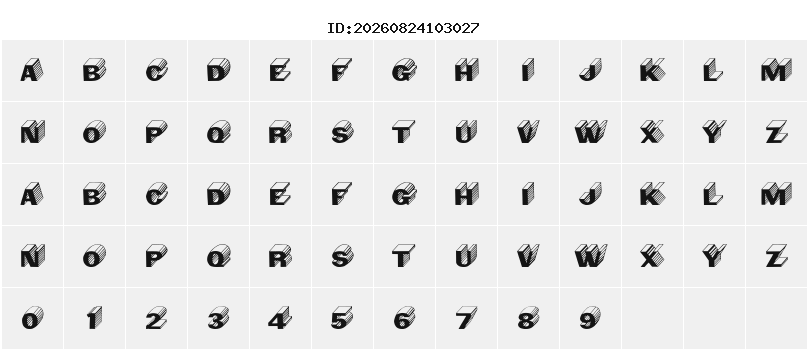
• Font Name: Salter Wd
• Full Font Name: Salter Wd
About Salter Wd.ttf
Salter Wd.ttf is a modern, elegant sans-serif font designed for ultimate readability and visual harmony. Perfect for branding, headlines, web design, and print materials.